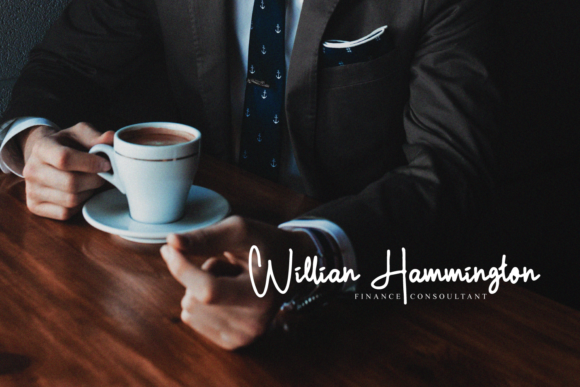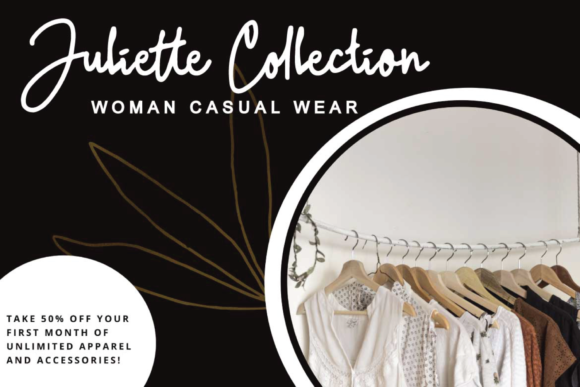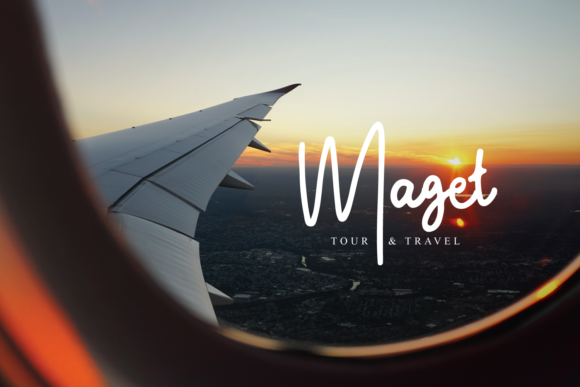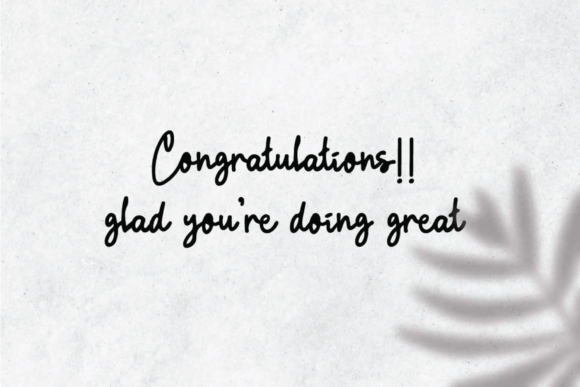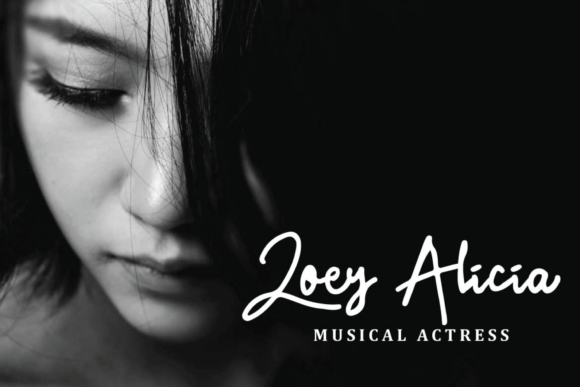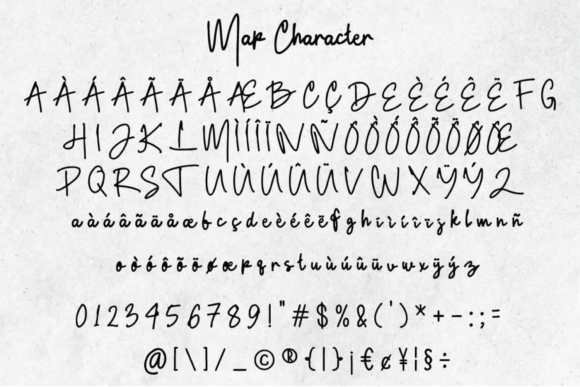
Marielle Signature Font
About Marielle Signature Font
Marielle Signature is a whimsical script font with a relaxed theme, featuring a lovely style. No matter the topic, this font will be an incredible asset to your fonts’ library, as it has the potential to elevate any creation.